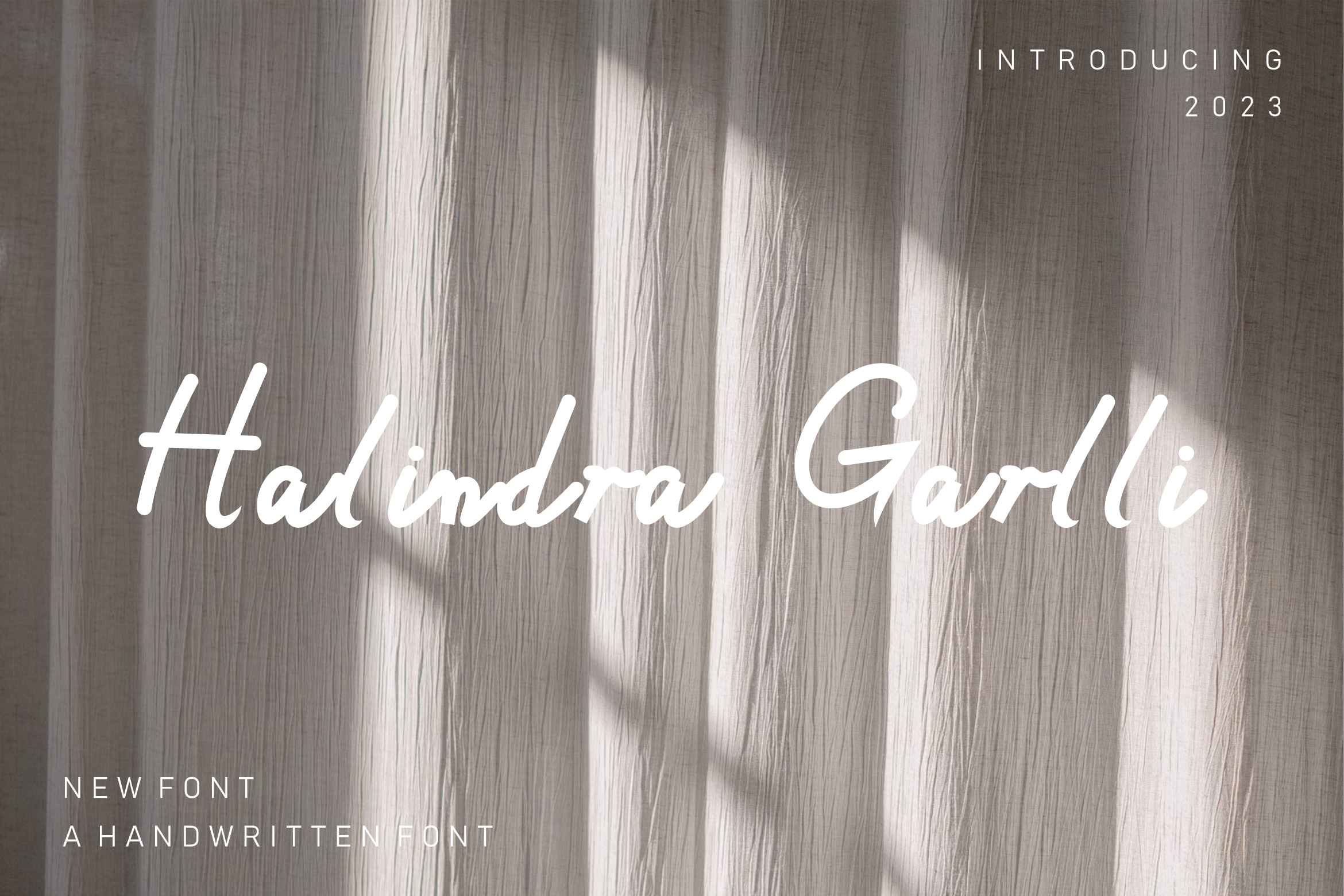
Halindra Garlli Handwritten Font.
Halindra Garlli Handwritten Font– related to travel, history & culture in the present/modern way,lifestyle designs such as logos, title, magazine, and more.